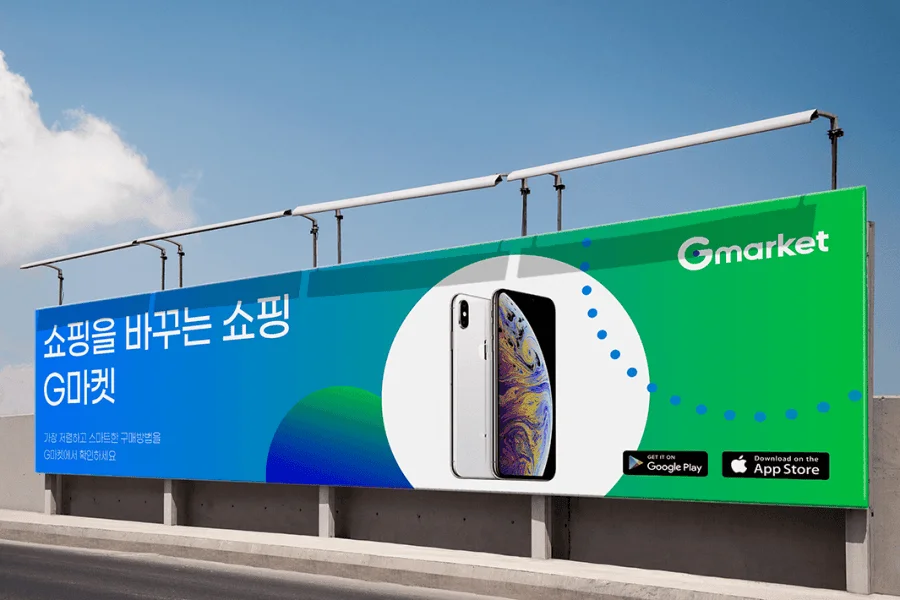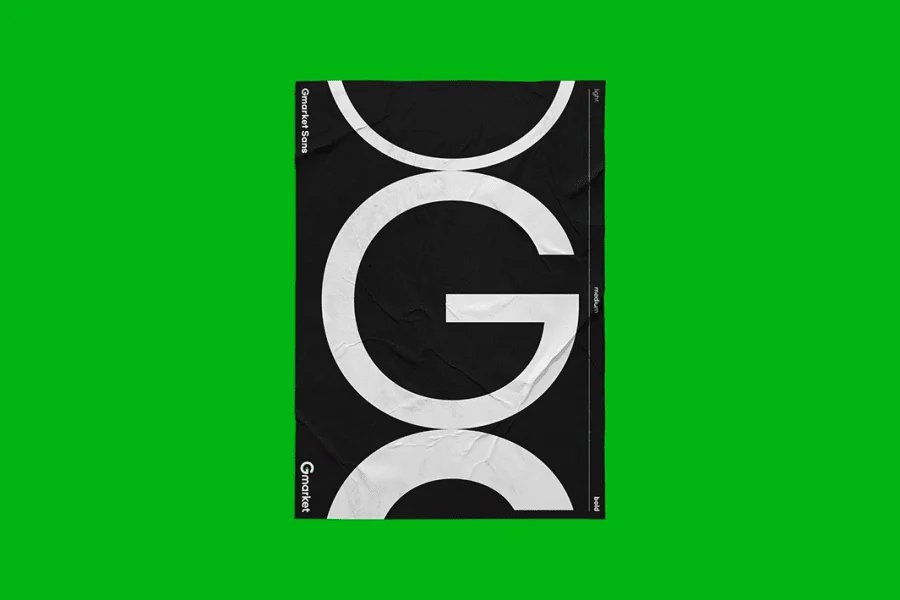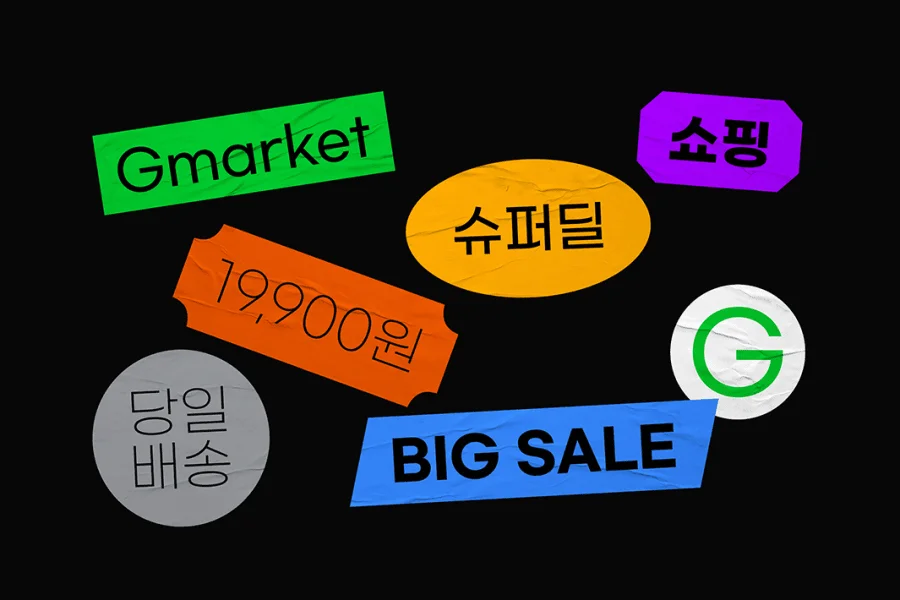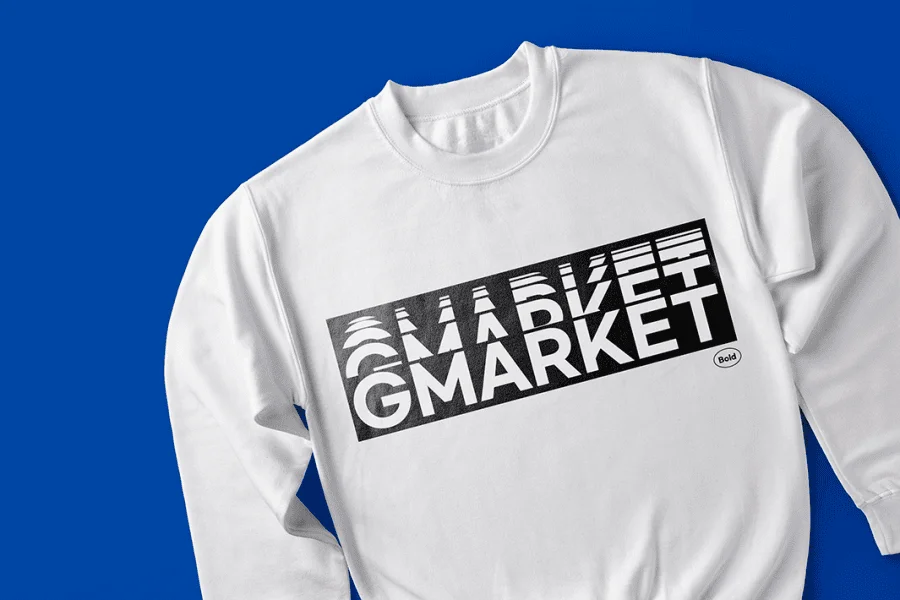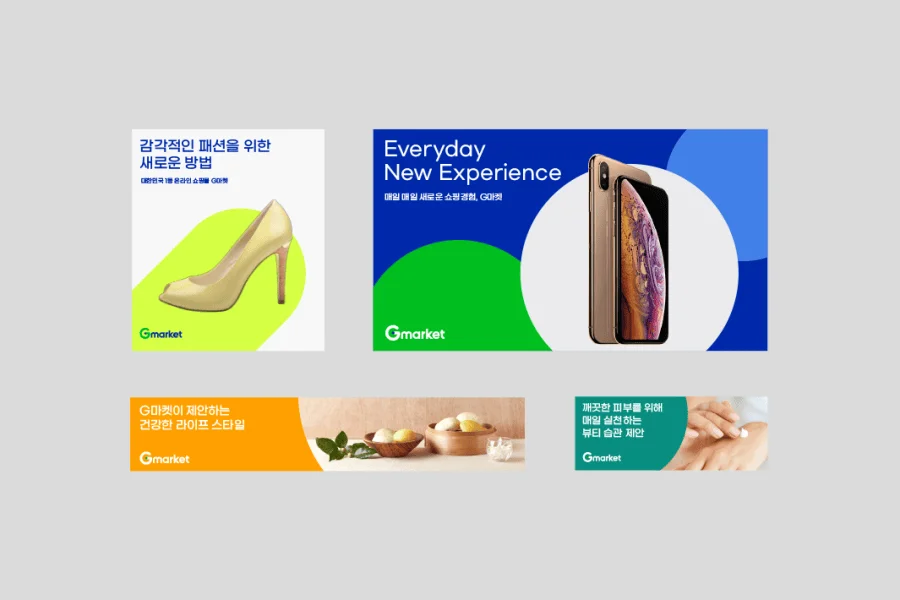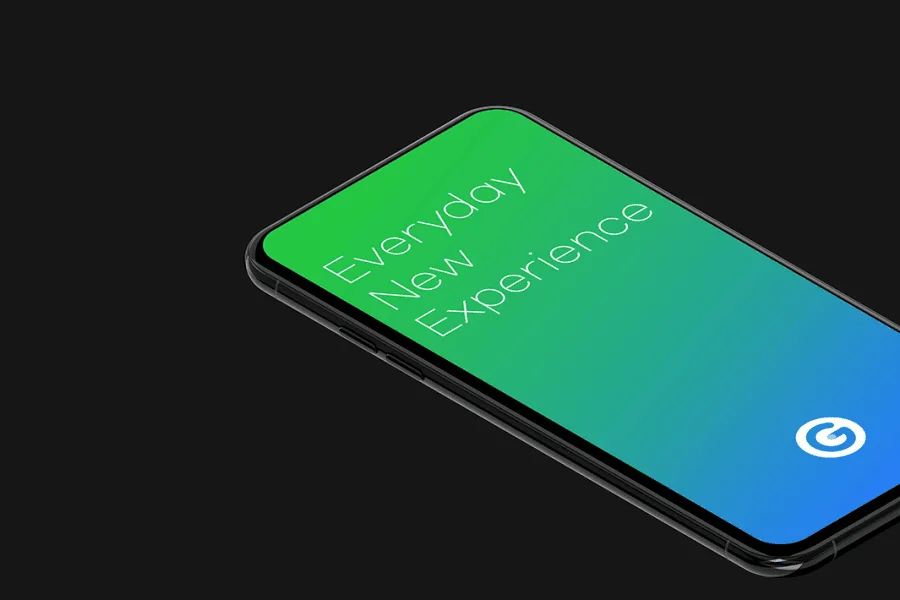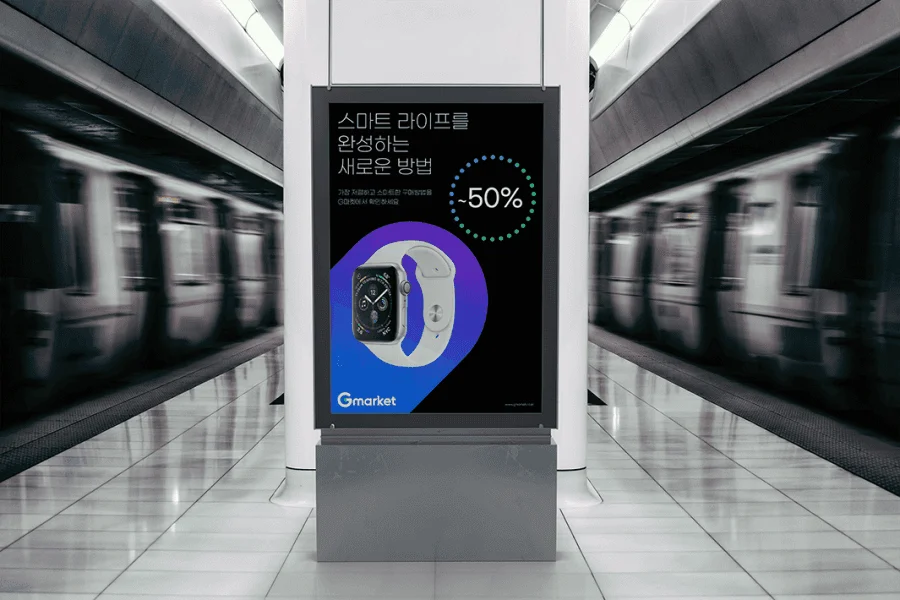
Introducing Gmarket Sans, a font that embodies the Gmarket brand identity, created to help various brands, sellers, and users grow together and share value.
Gmarket Sans consists of 11,172 Korean characters, 95 English characters, and 986 special characters, and is produced in three weights: Bold, Medium, and Light.
Gmarket's diverse and intuitive shopping experience is expressed in a simple and linear form. The geometric letterforms that fill the square frame neatly organize the lines, giving a neat and aligned feel.
It is a popular font that anyone can easily use. It has a friendly and natural impression because it follows the natural stroke order of handwriting. The size and space of each letter in Korean, English, and numbers are adjusted according to the shape of each letter, so even when using letters mixed together, it is easy to create neat and refreshing expressions.
It was created to enable all Korean expressions that can be combined with the first consonant, single consonant, and final consonant. The letters were created to be free of breakage and to look good in print, on the web, and on mobile, so that they can be used comfortably in any environment.